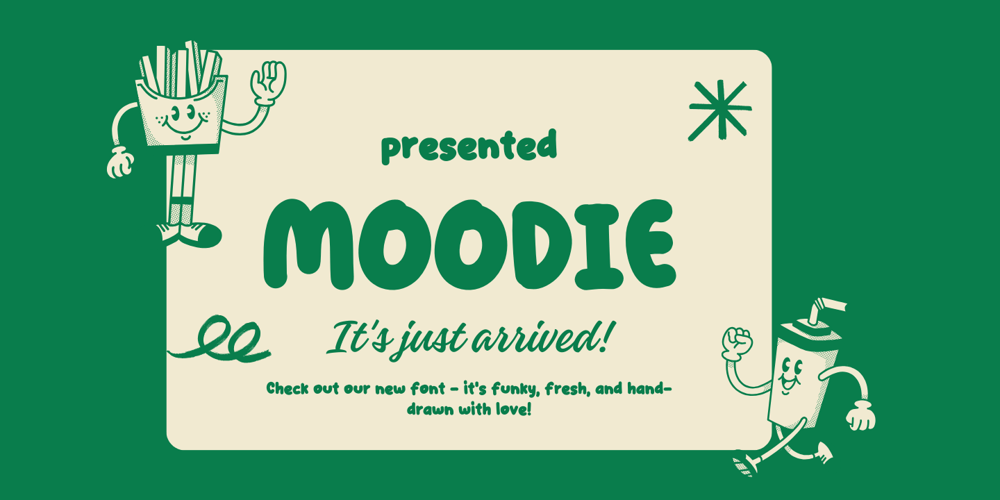
Moodie Font Family was designed by Studio LetterStock and published by LetterStock. Moodie contains 1 styles and family package options. Introducing “Moodie” – Your Retro Hand-Drawn Playful FontBring a splash of retro playfulness to your designs with “Moodie,” a font that exudes the charm of hand-drawn lettering. This font is your ticket to a whimsical journey back in time, perfect for posters, invitations, and branding projects that crave a touch of playful nostalgia.Key Features: Retro Hand-Drawn Whimsy: “Moodie” captures the whimsical essence of retro hand-drawn lettering, infusing your designs with a joyful spirit. Playful Vibes: Each character dances with a playful energy, making “Moodie” the perfect choice for designs that seek a lighthearted and retro aesthetic. Why Choose “Moodie”: Craft posters that radiate a joyful retro vibe. Design invitations that set the stage for a celebration of playfulness. Establish a brand presence with a font that combines the charm of the past with a modern twist. Download “Moodie” Now and Infuse Your Designs with Retro Playful Vibes!